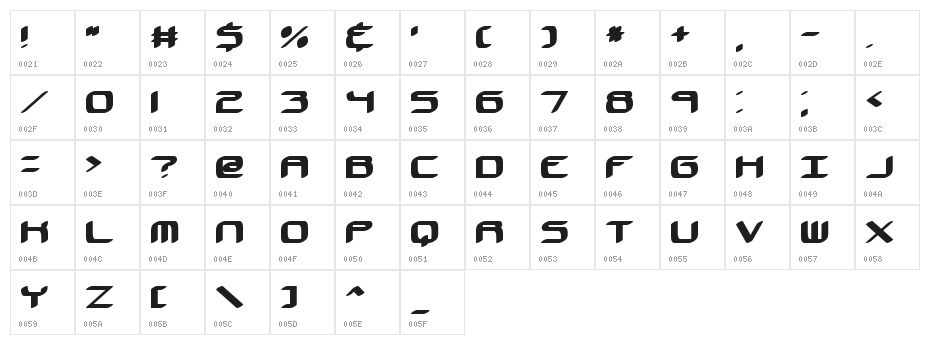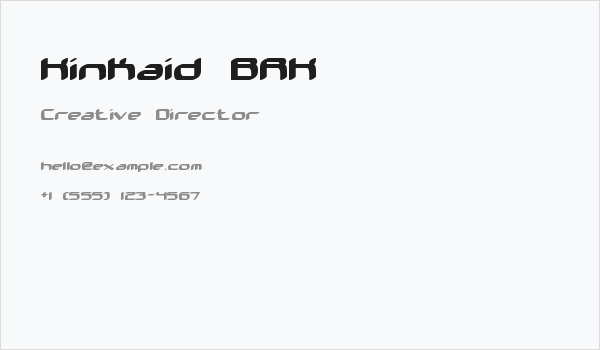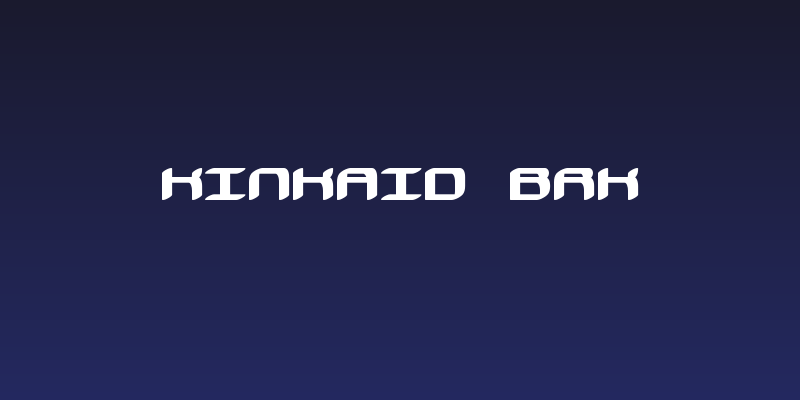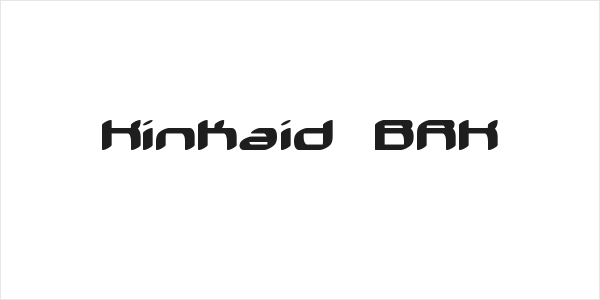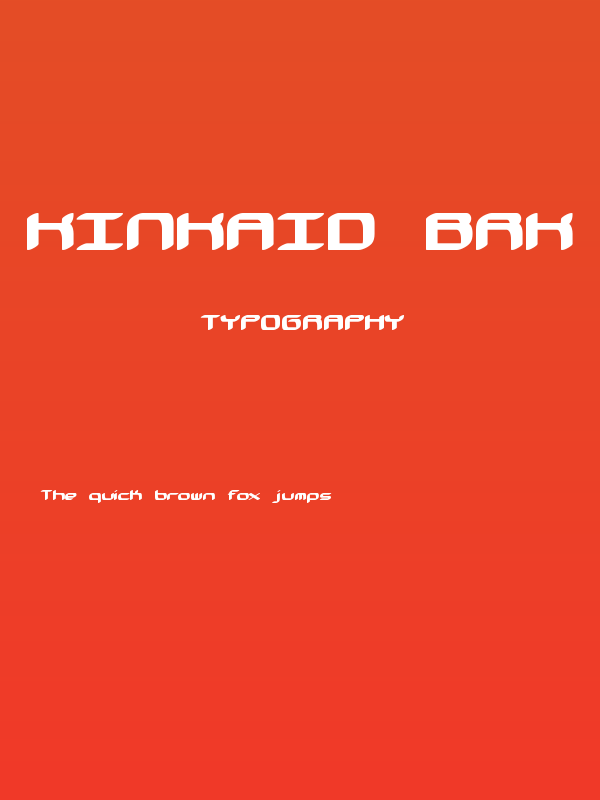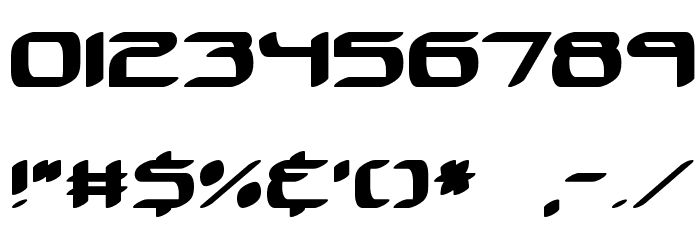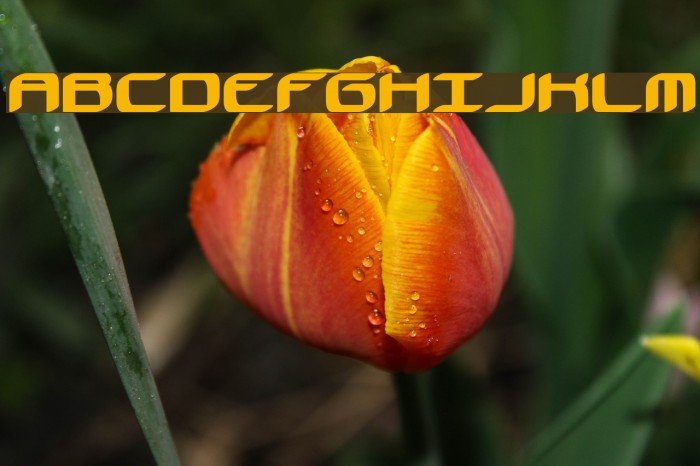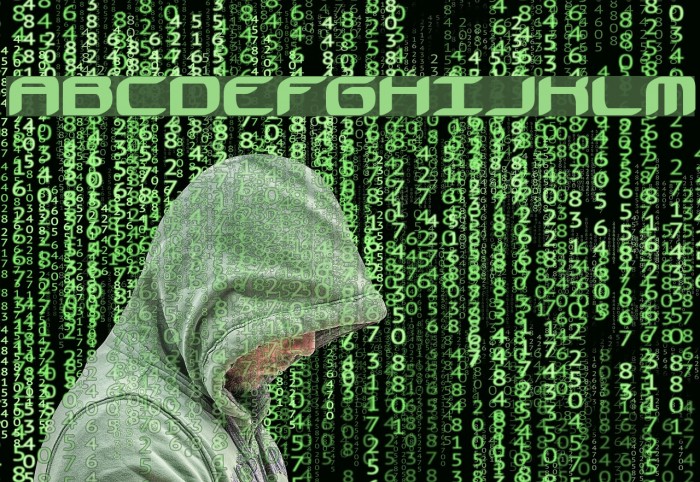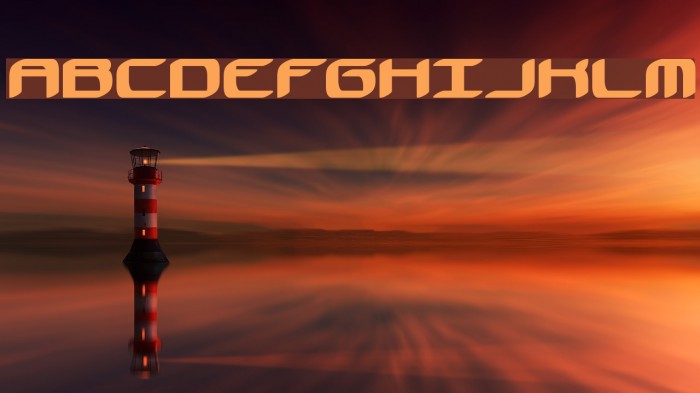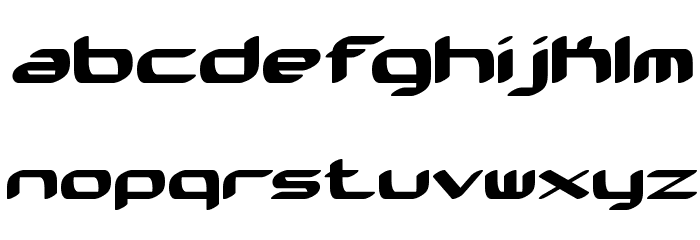
Kinkaid BRK Font
Kinkaid BRK Description
This font features a futuristic and angular design, characterized by its sharp edges and geometric shapes. The uppercase letters are bold and dynamic, with a distinct slant that gives a sense of motion and energy. The lowercase letters maintain the same angular style, providing a cohesive look throughout the typeface. Numbers and special characters are designed to match the overall aesthetic, making them suitable for a variety of creative applications. The font's unique style makes it ideal for projects that require a modern and edgy appearance.
| Proposed Projects | Ideal for sci-fi themed designs, tech branding, video game titles, and modern posters. |